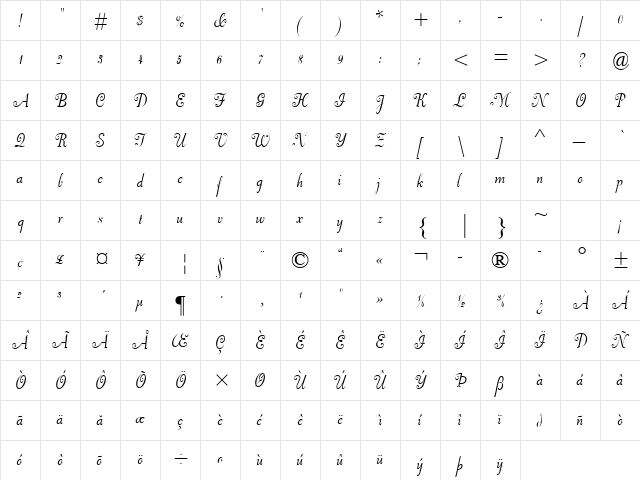
Dorchester Script MT Std Regular
Design Context for Dorchester Script MT Std Typeface
Dorchester Script MT Std brings a calligraphic fluidity to the page — its connecting strokes and expressive curves give it an unmistakably human quality.
Font Pairing: Combine Dorchester Script MT Std with a simple geometric sans for maximum contrast — the tension between flowing curves and clean structure is a classic typographic pairing.
Pro Tip: Use Dorchester Script MT Std for short runs of text — names, titles, or taglines. Extended body copy in script faces tires the eye quickly.